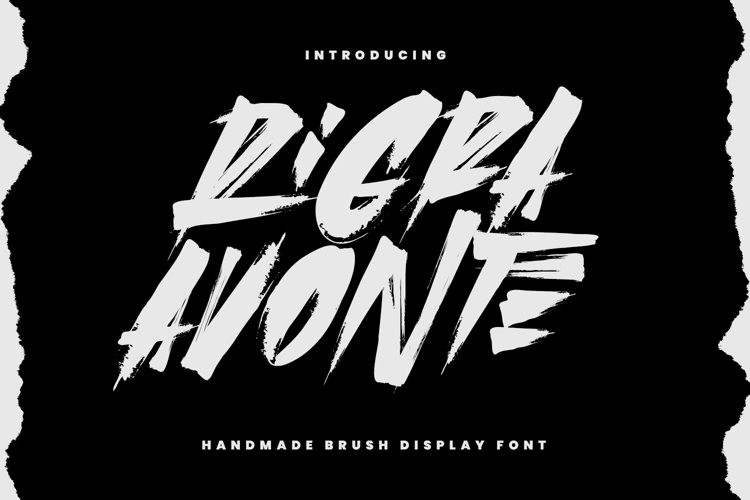
Rigra Avonte is a brush display handwritten font. With bold stroke, fun character with a bit of alternates and ligatures. To give you an extra creative work. Rigra Avonte font support multilingual more than 100+ language. This font is good for logo design, Social media, Movie Titles, Books Titles, a short text even a long text letter and good for your secondary text font with sans or serif. Make a stunning work with Rigra Avonte font.
Rigra Avonte